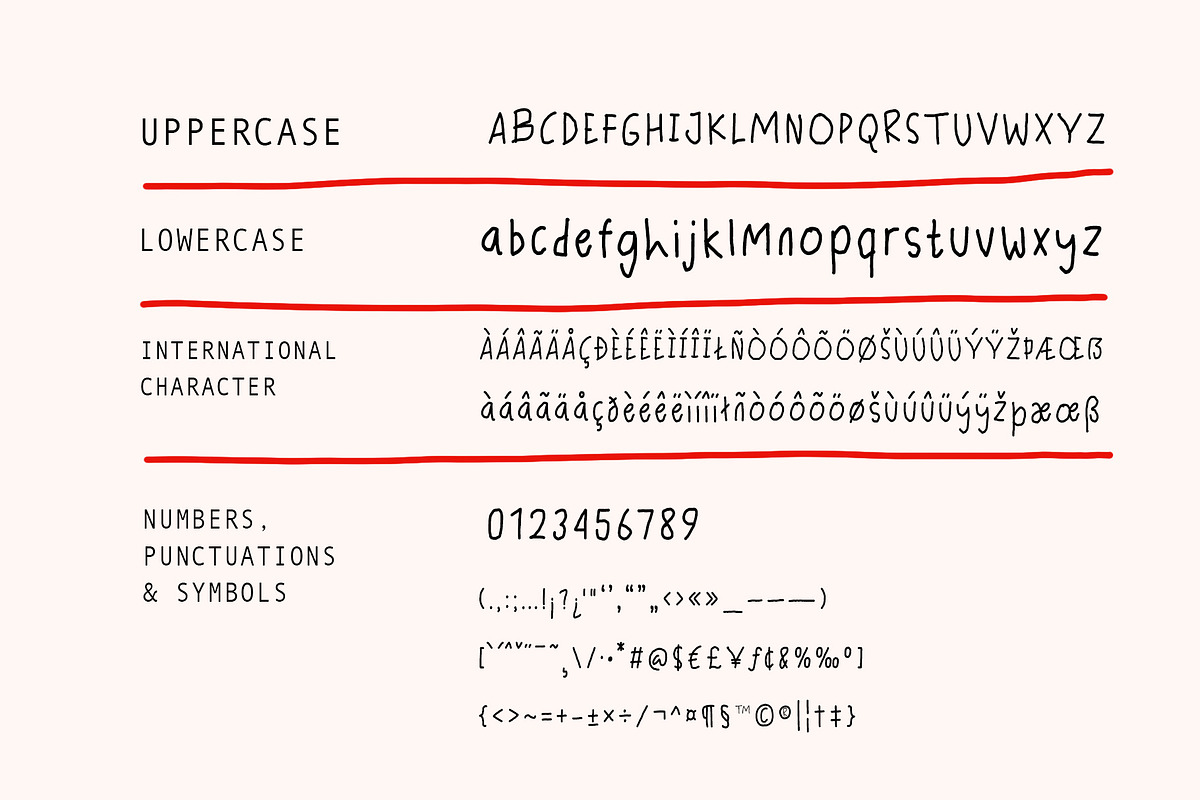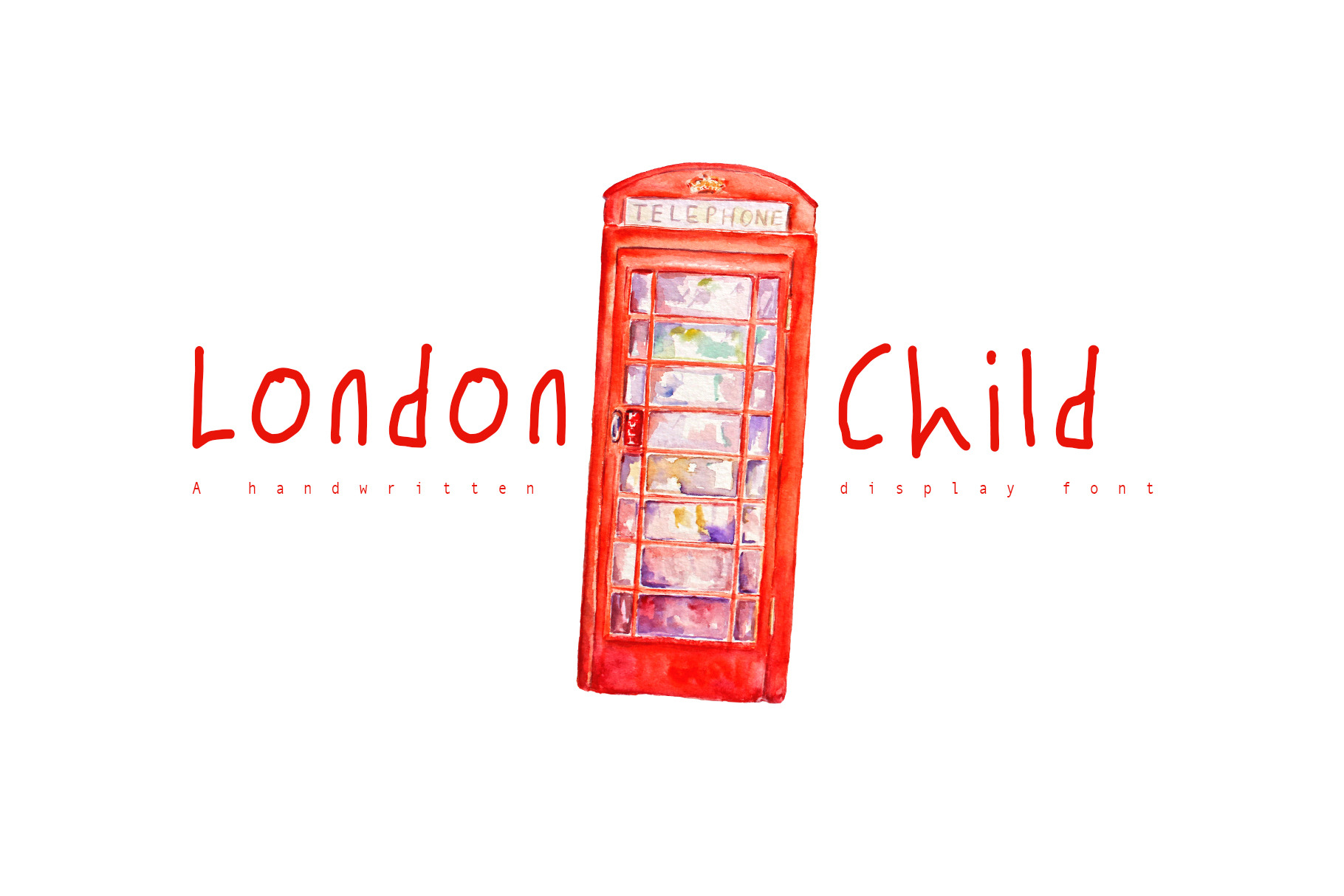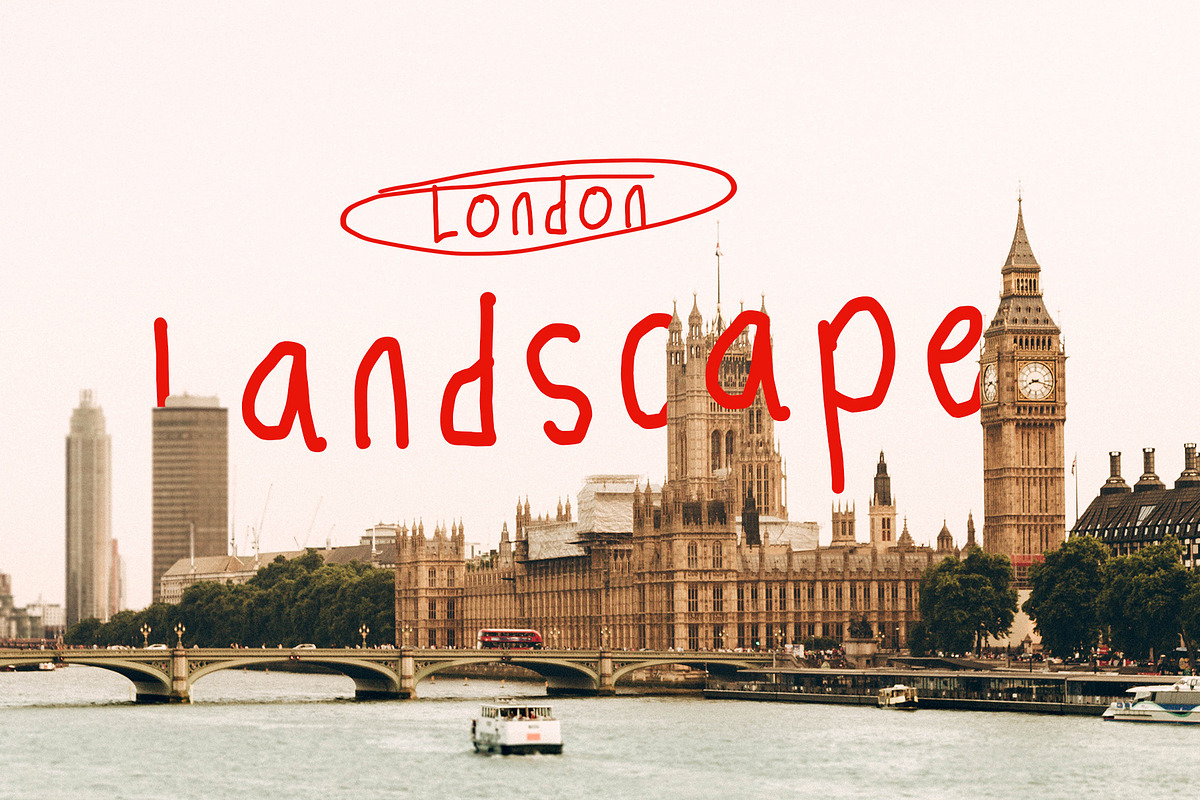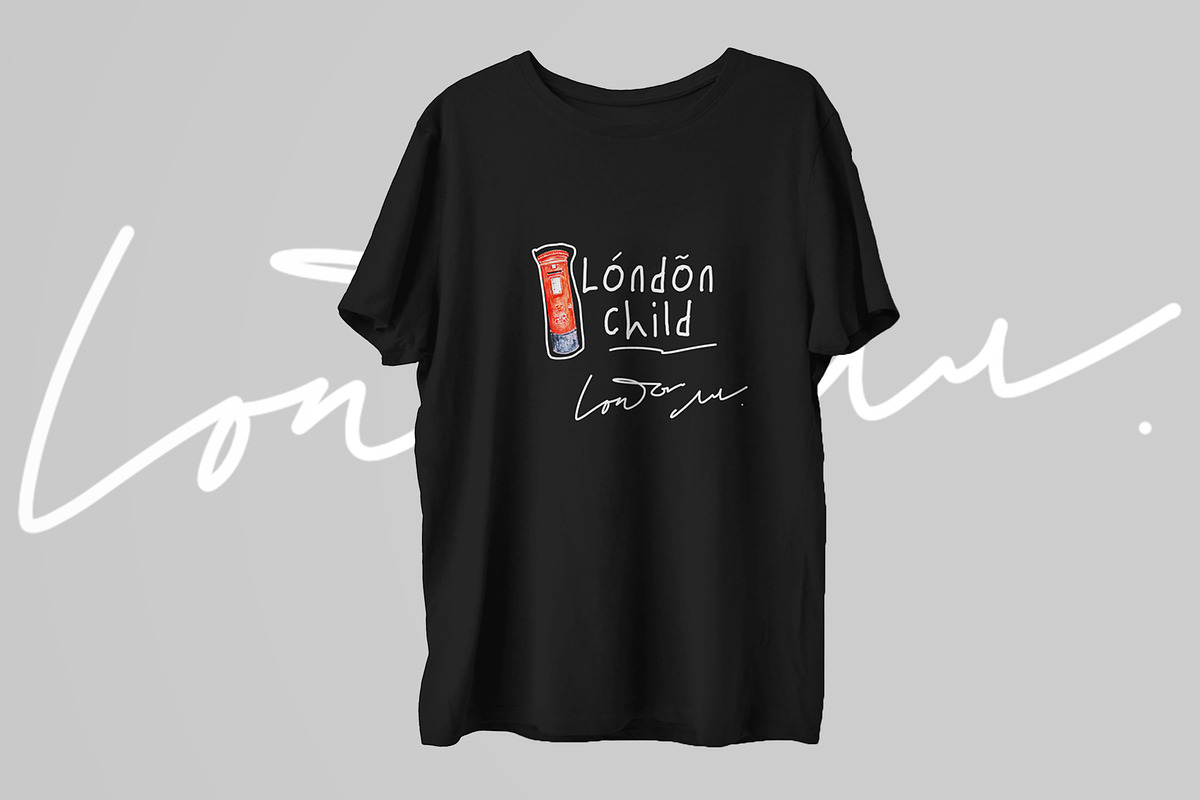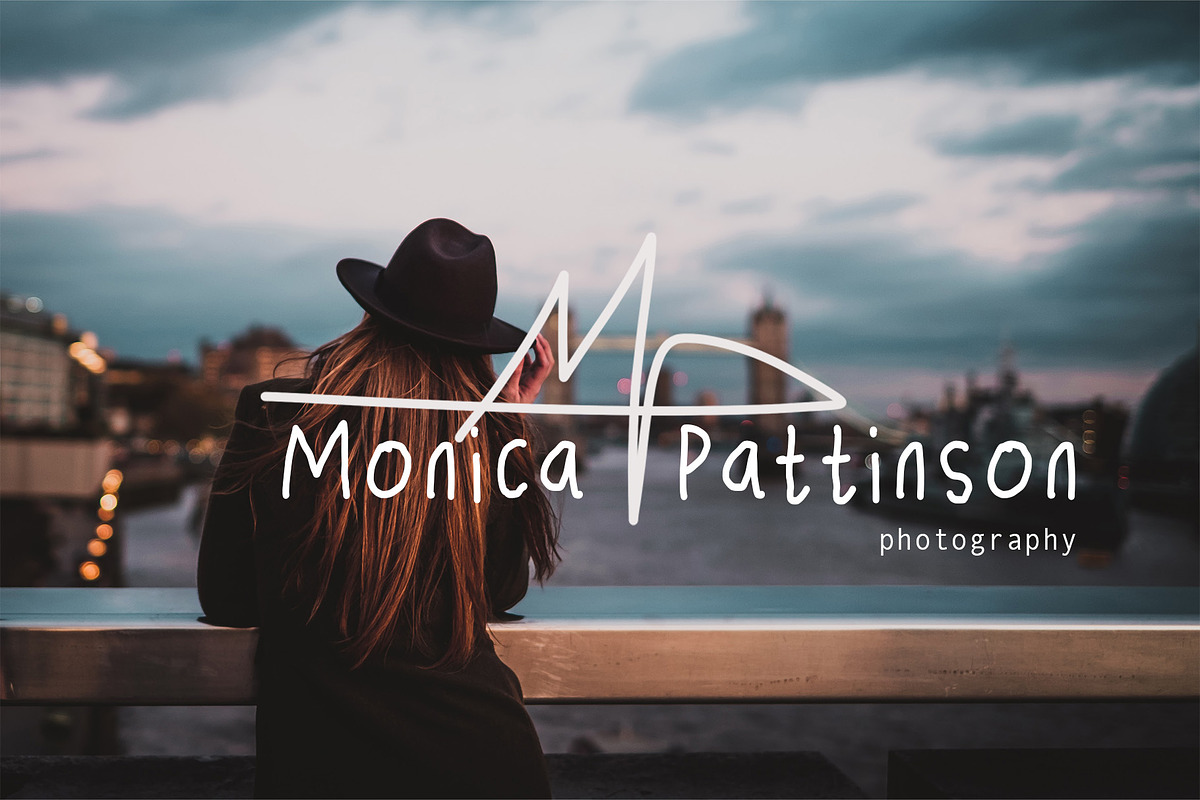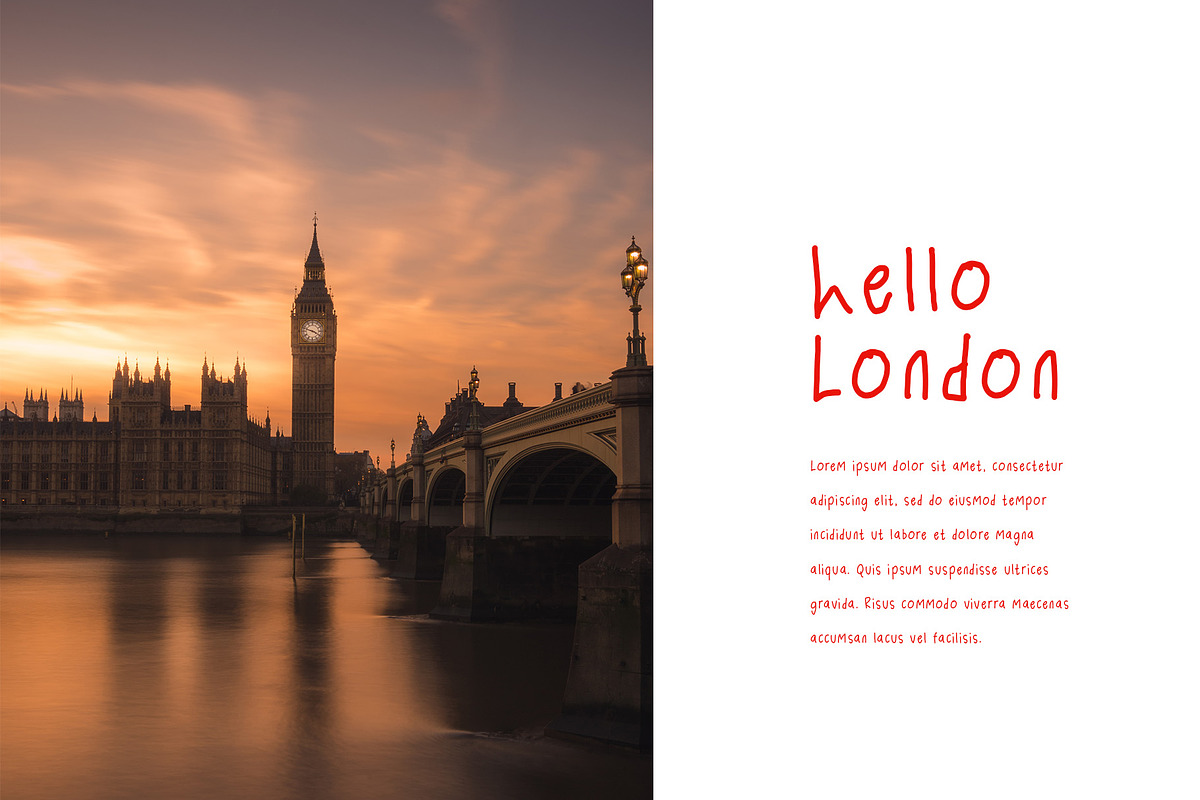
London Child a Handwritten Font
London Child is a charming handwriting font that captures the innocent and playful style of a child's writing. The font exudes the delightful and carefree essence of a young one's penmanship, making it a perfect choice for designs that aim to evoke a sense of joy and innocence.
The creation of London Child font was inspired by the curiosity and creativity of children when they first learn to write. We wanted to preserve and celebrate the unique charm found in their handwriting, as it holds a special place in the hearts of many.
With London Child each letter and character is crafted with a childlike touch, showcasing imperfect lines, wavy curves, and a spontaneous flow that reflects the genuine expression of a young hand holding a pen.
This font is versatile and can be used for various design projects, such as children's book illustrations, playful branding, invitations, and any other creative endeavors that embrace the heartwarming and endearing qualities of a child's writing.
Incorporating London Child into your designs will add a touch of innocence and nostalgia, invoking fond memories of early learning days. The font allows you to share the magic of childhood through your creations and captivate the hearts of your audience with its delightful and genuine handwriting style.